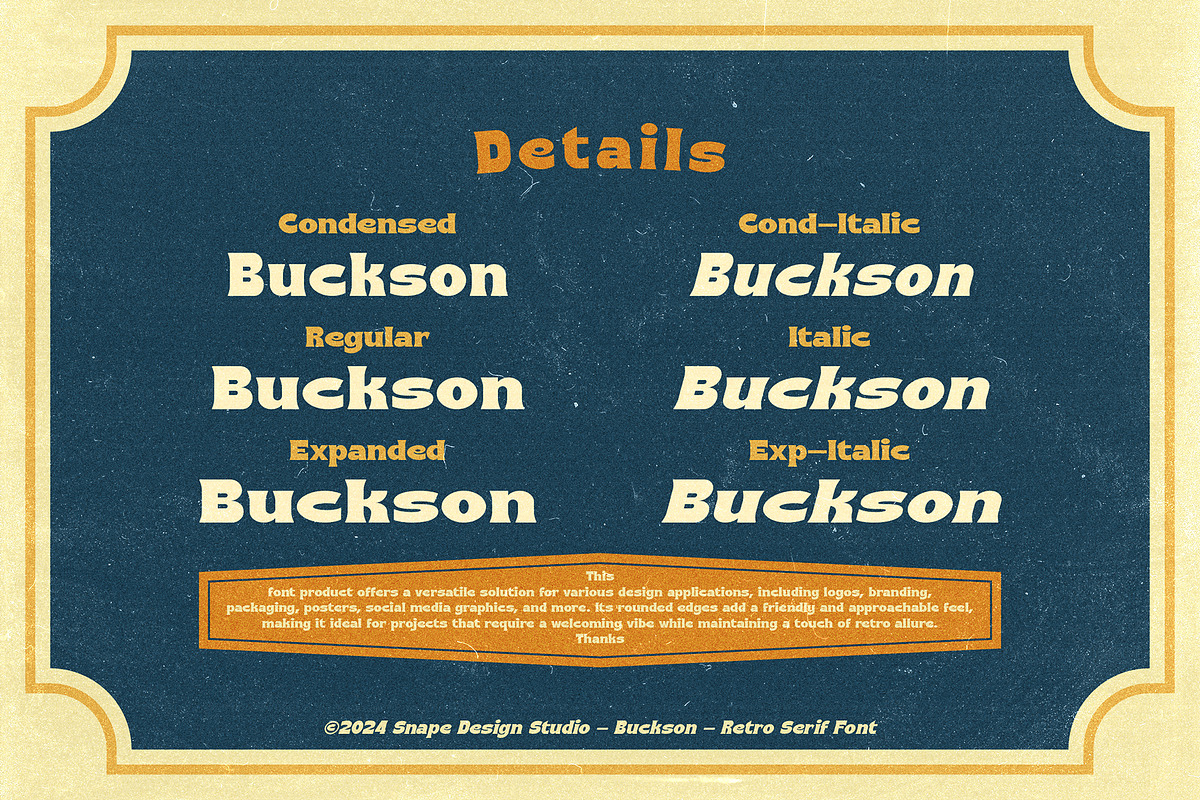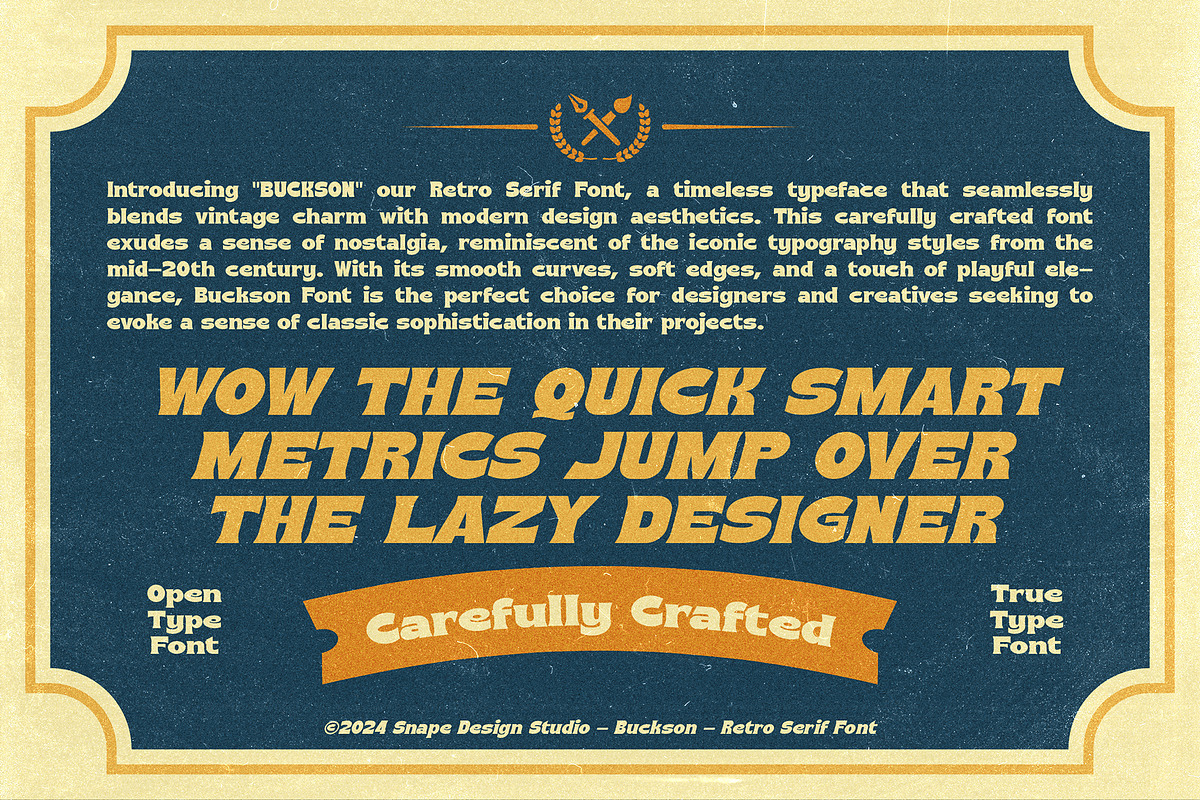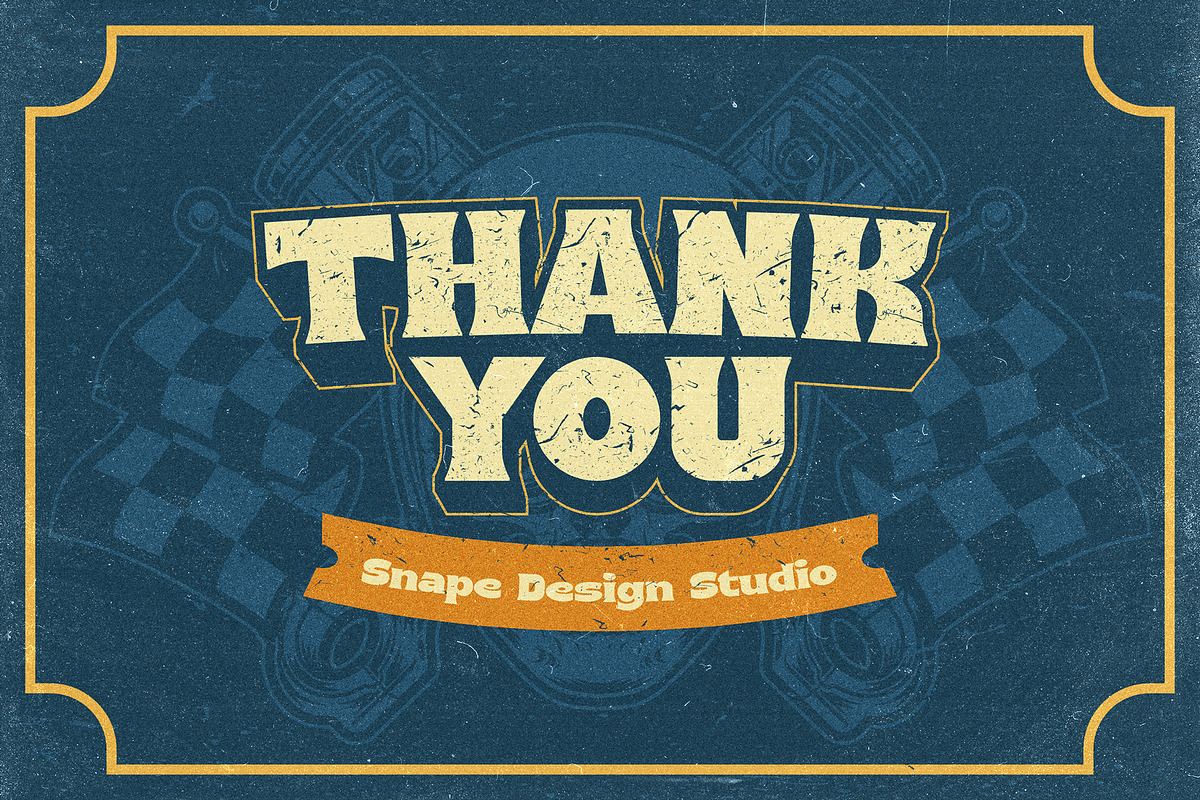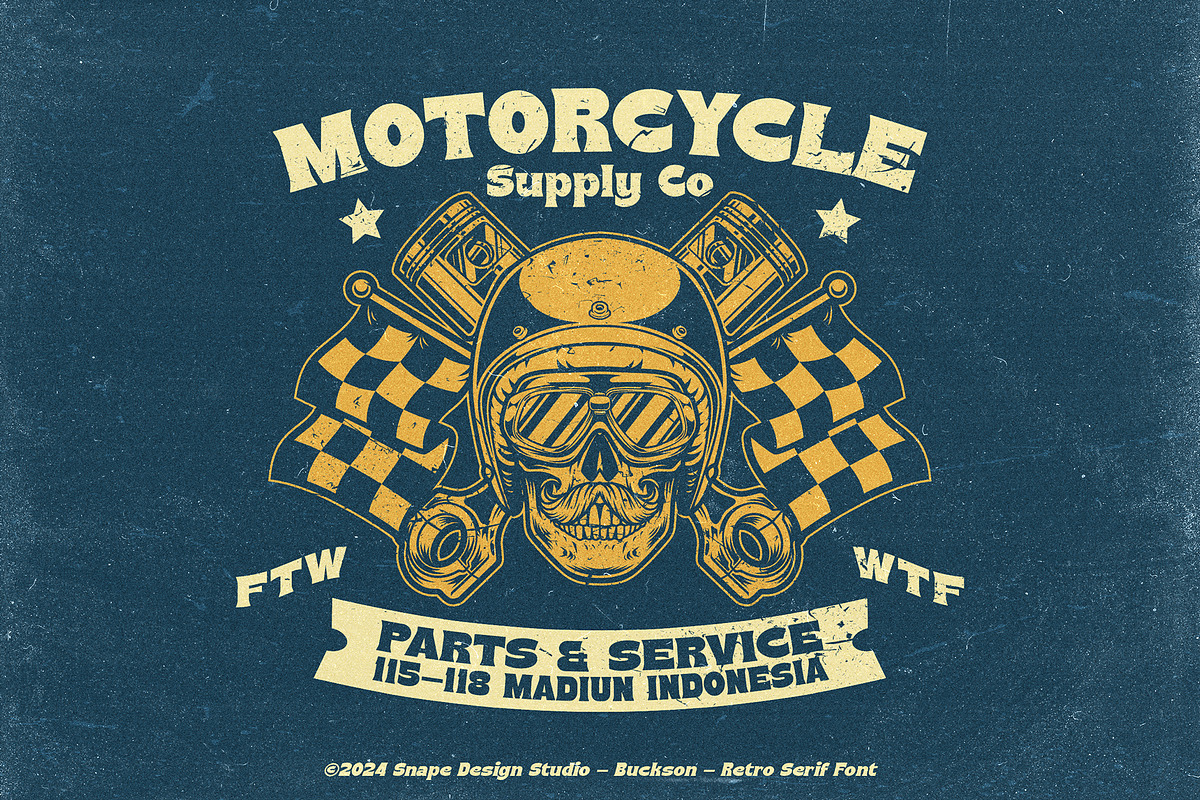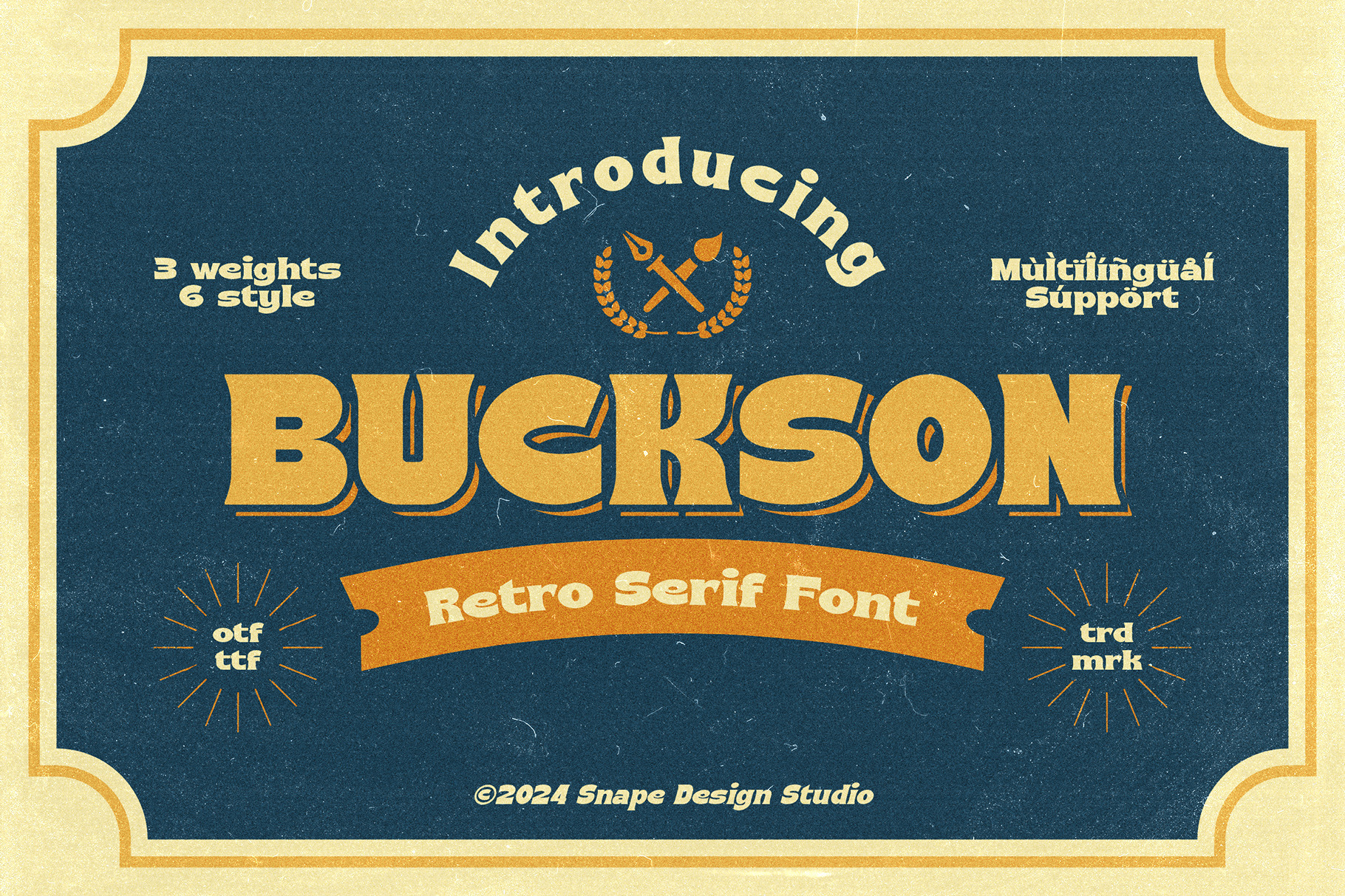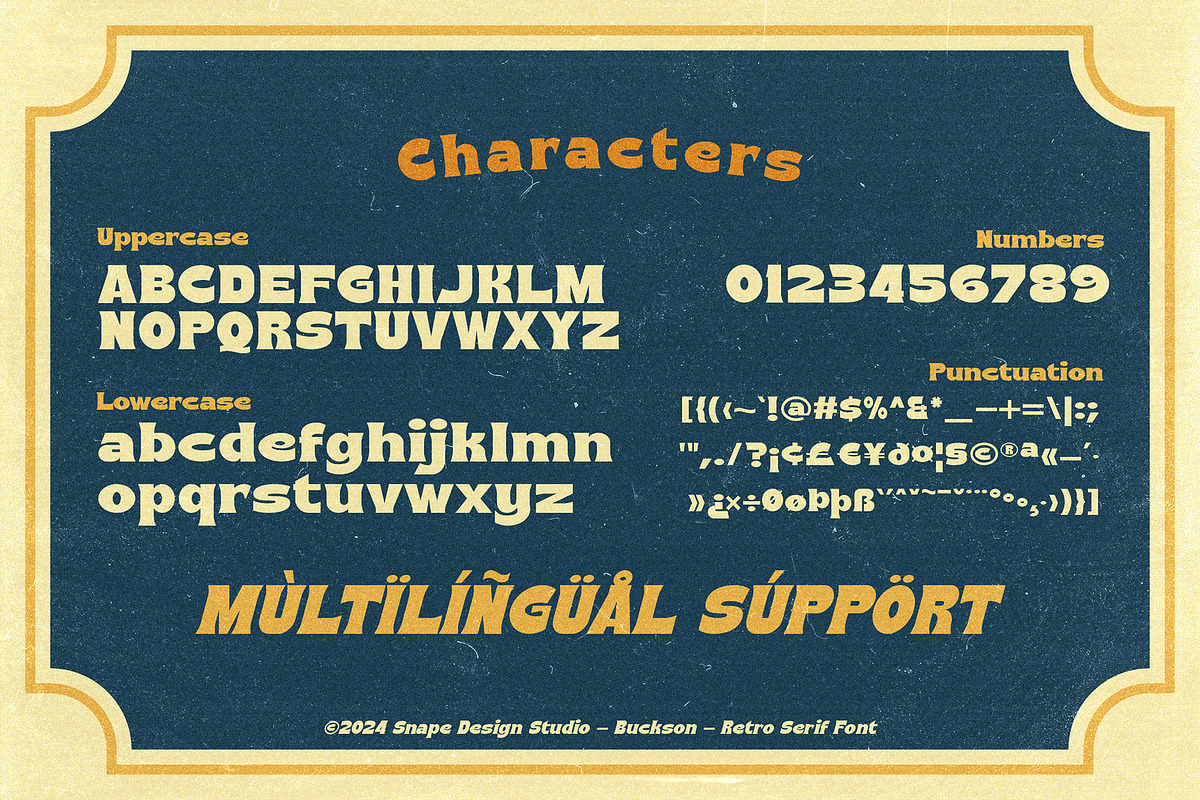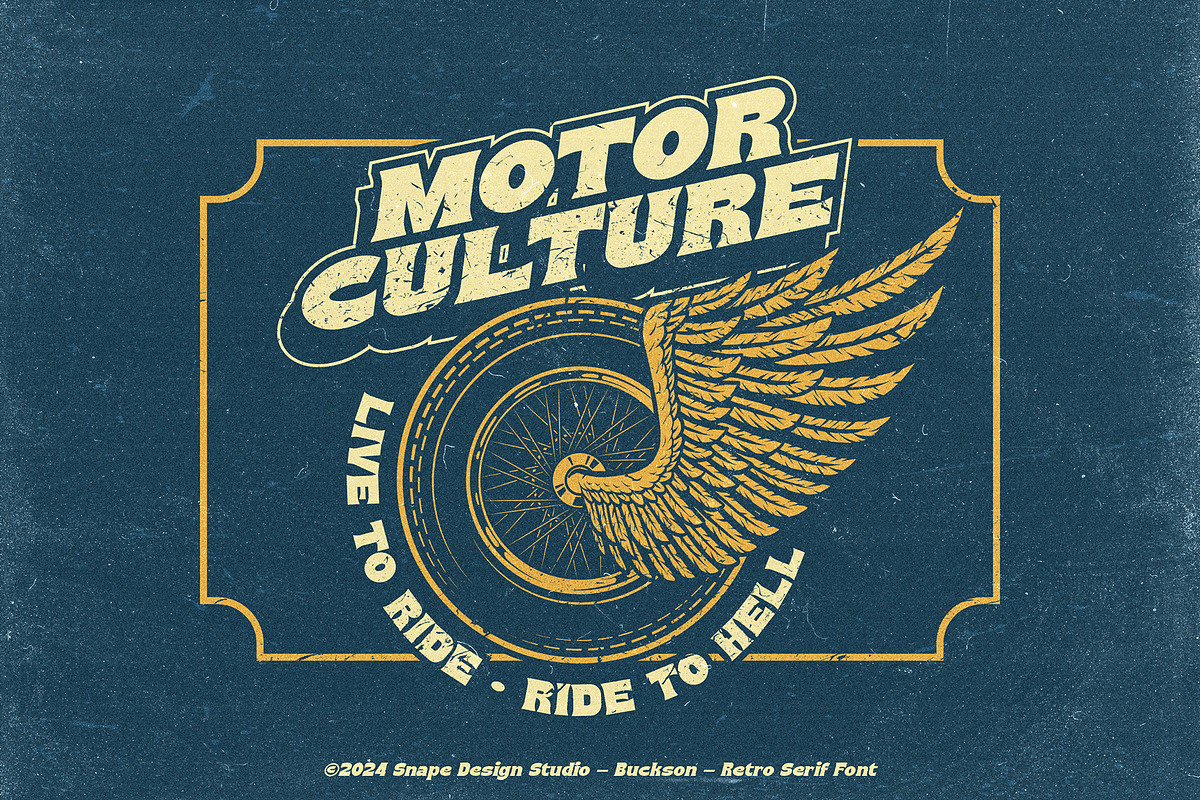
Buckson - Retro Serif Font
Buckson, a retro serif font, effortlessly captures the essence of mid-20th-century typography with its elegant serifs and clean lines. Reminiscent of vintage print materials, it exudes warmth and sophistication, making it perfect for branding, packaging, and editorial design. With a range of weights and styles, Buckson adds timeless charm to any project, evoking nostalgia while maintaining modern functionality.
FEATURES : Uppercase, Lowercase, Number, Punctuation, Multilingual
FAMILY FONT : Regular, Italic, Condensed, Cond-Italic, Extended, Ext-Italic